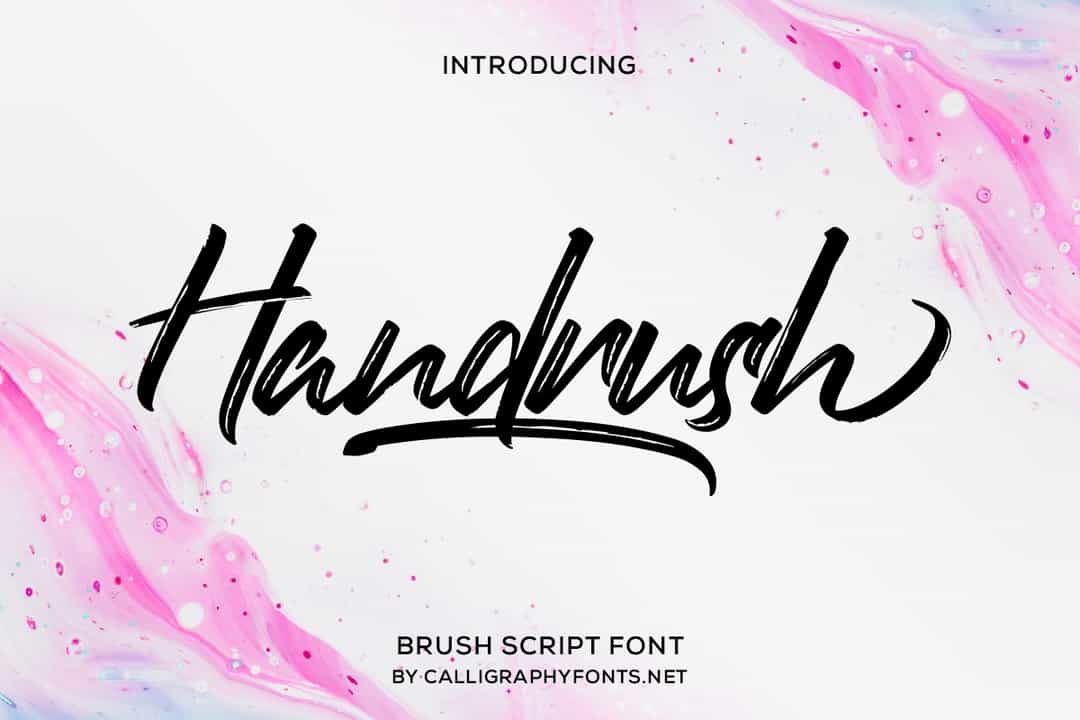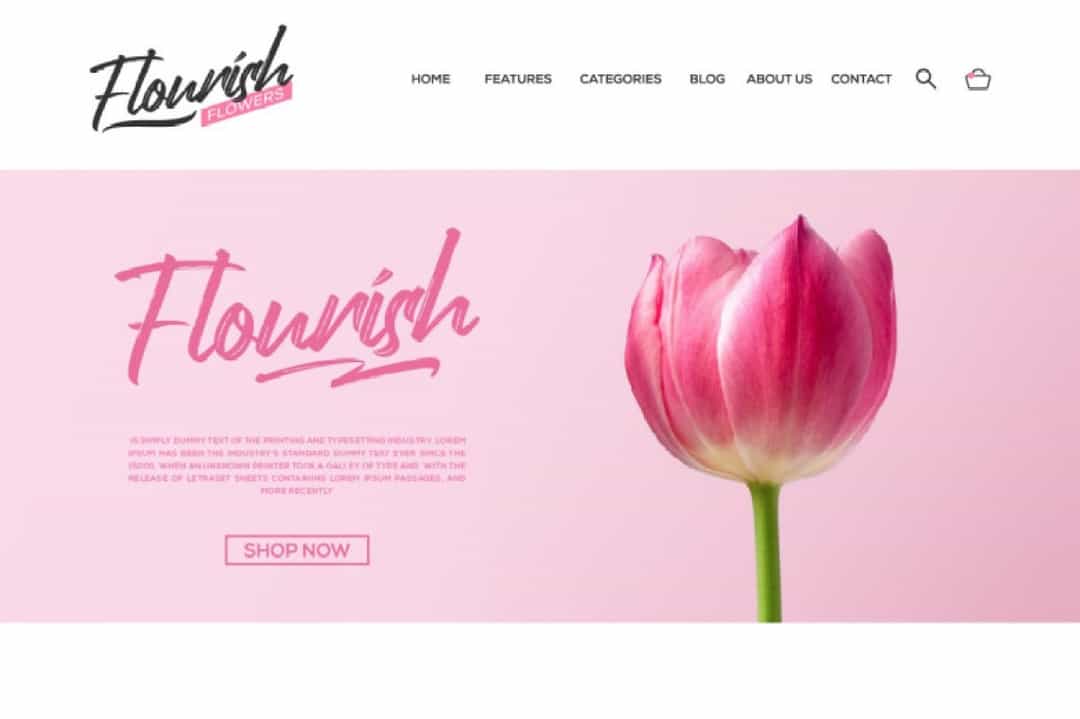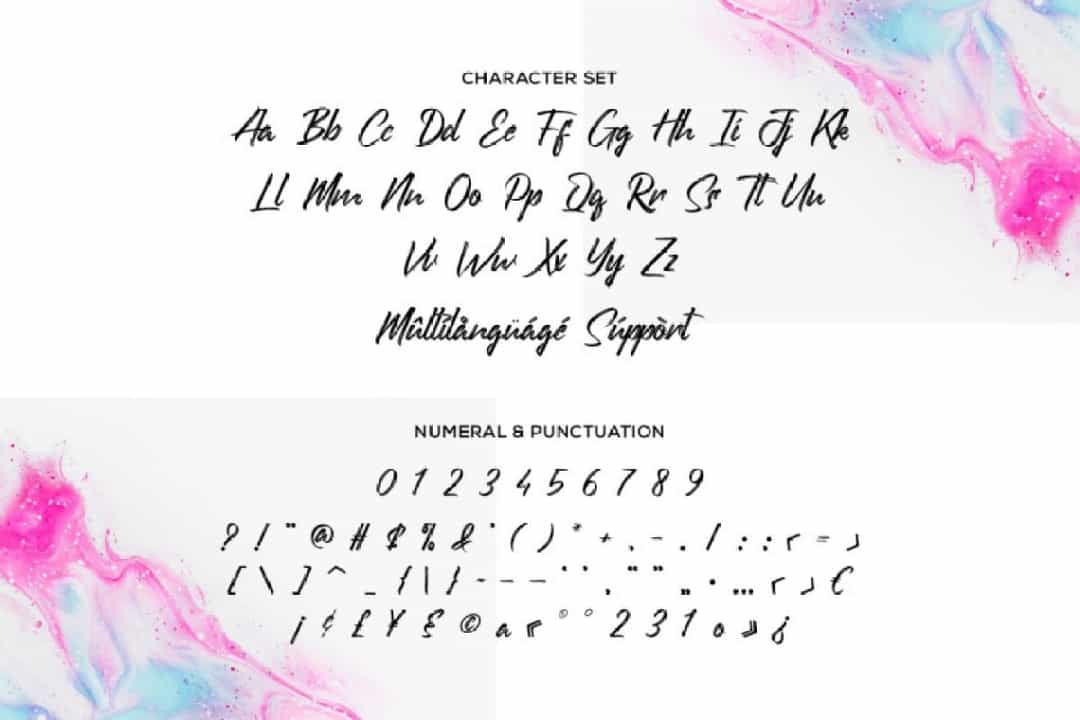
Handrush is a freeware brush font which has been created by the designer. The look of this font is intended to be classic, tasteful, upscale, and, most of all, sturdy – this font has been tested on both PC and Mac! To start with, it was Retro style with Hand Lettering as a reference. You will be glad to know that every curve in this font has been designed intentionally!